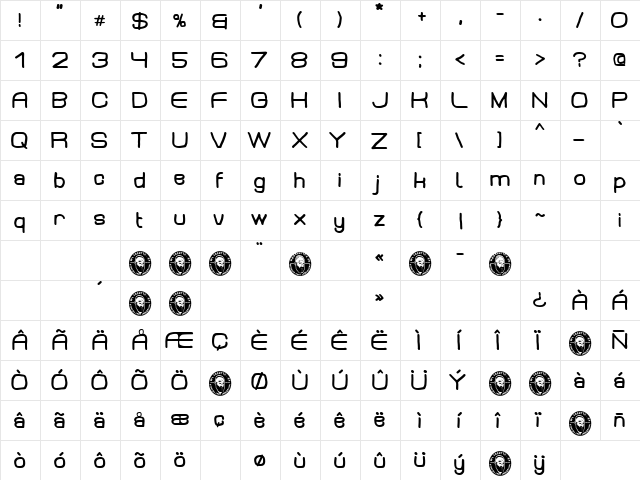
Neo Metropolis Regular
| Designer | Woodcutter Manero |
Design Context for Neo Metropolis Typeface
Neo Metropolis takes a measured approach to typography — its balanced proportions and neutral character make it a reliable workhorse for both digital and print work.